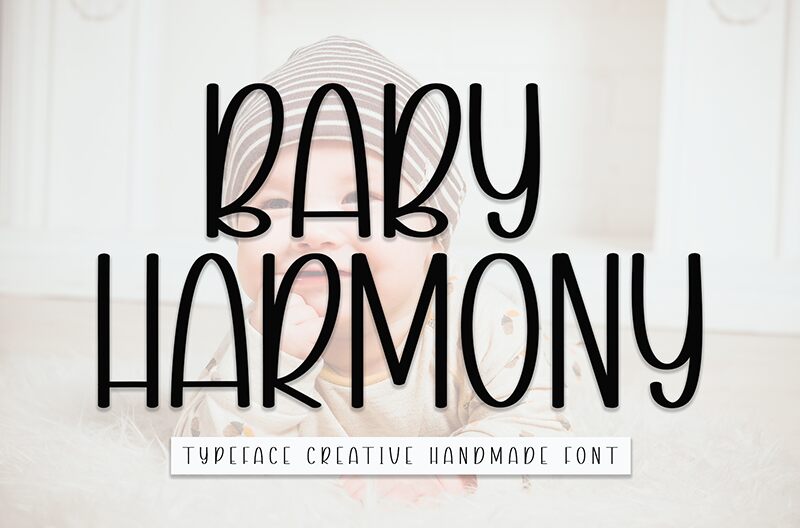
Baby HARMONY
Baby Harmony is a free handwritten font created by Andi Moz. It features a natural flow and casual rhythm, which are typical of handwriting styles.
This font is great for labels, posters, packaging designs, business cards and advertisements. Baby Harmony will also make a great addition to greeting cards, posters, t-shirts, banners, brochures, notebooks, etc.
This condensed font is fun and eye-catching so it makes a perfect addition to any design project.